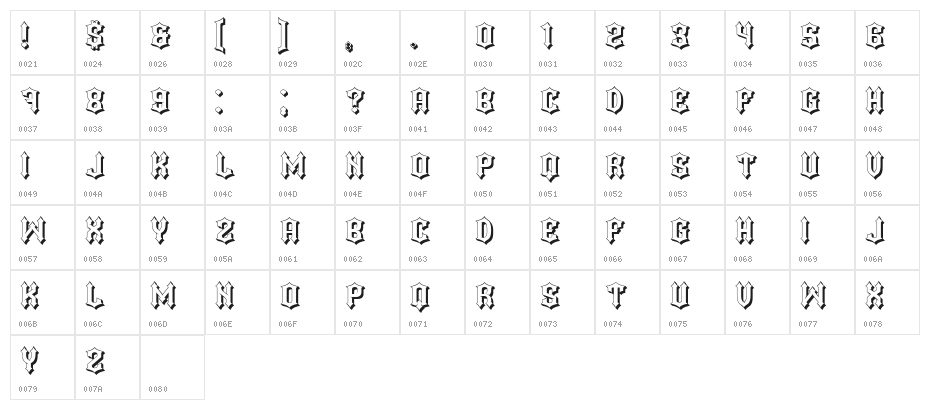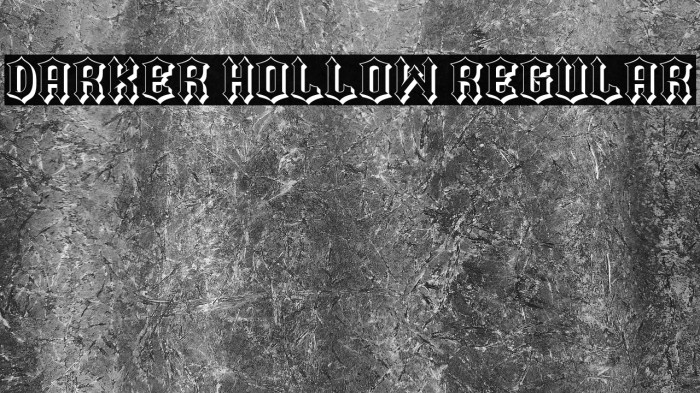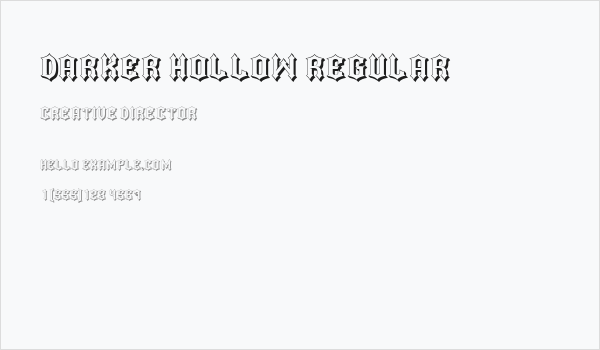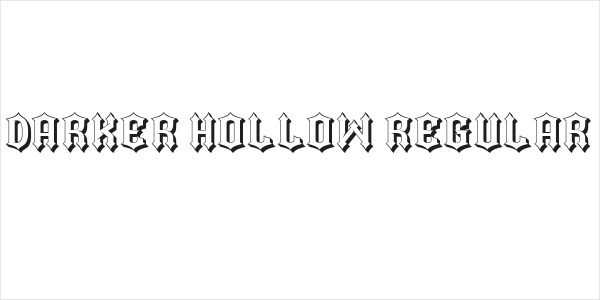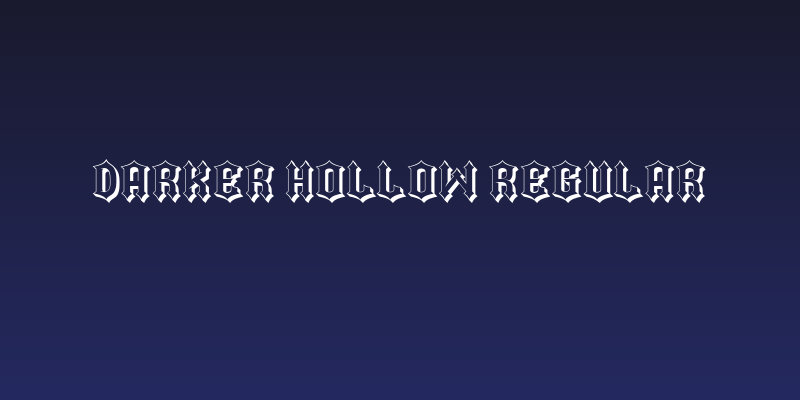
Darker Hollow Regular Font
Darker Hollow Regular Description
This font features a bold, gothic-inspired design with a hollow interior, creating a striking and dramatic appearance. The sharp, angular edges and intricate detailing give it a medieval feel, reminiscent of old English or blackletter styles. Each character is meticulously crafted with a consistent weight and width, ensuring a cohesive look across all letters and numbers. The font's unique hollow effect adds depth and dimension, making it stand out in any design. Its decorative nature makes it ideal for projects that require a touch of elegance and historical flair.